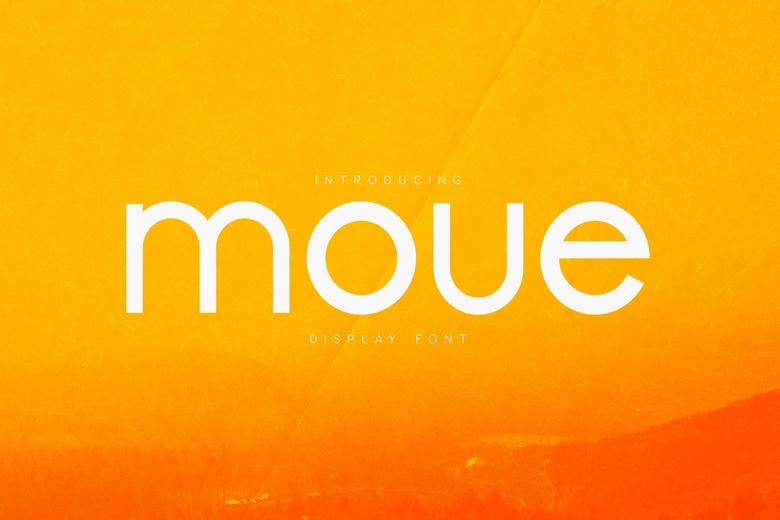
Moue Font
Moue is a bold, rounded display font with a soft, friendly style. Its smooth curves and open shapes make it warm and approachable, while still being easy to read and attention-grabbing.
Moue is a good fit for modern branding and expressive design. It works well for posters, headlines, logos, packaging, social media, children’s projects, tech brands, playful editorials, and bold visual identities. The rounded shapes help create a welcoming look, especially when used in large sizes and bright colors.
The font comes with uppercase and lowercase letters, numbers, punctuation, and broad multilingual support. You’ll receive. OTF files that work well in all major design software on both Mac and Windows. Moue is a strong option if you want a display font that feels bold but still soft, human, optimistic, and versatile.
Moue Sans Serif Font